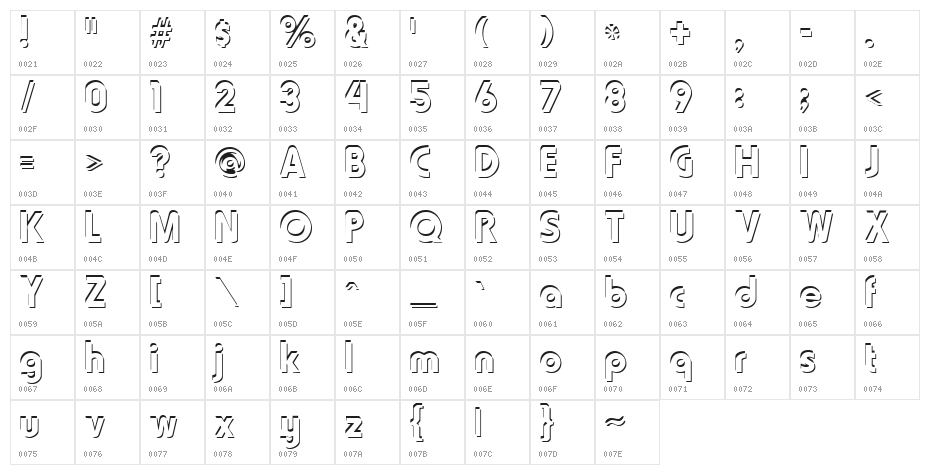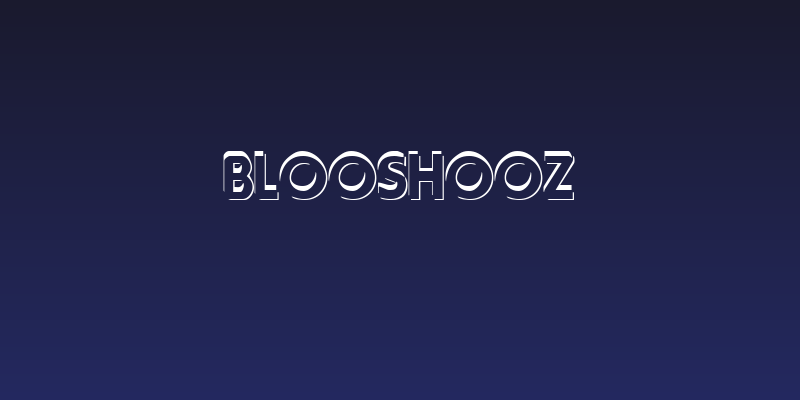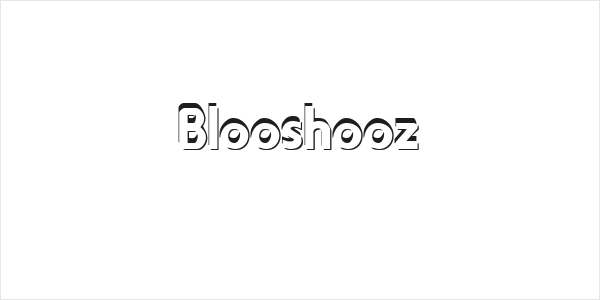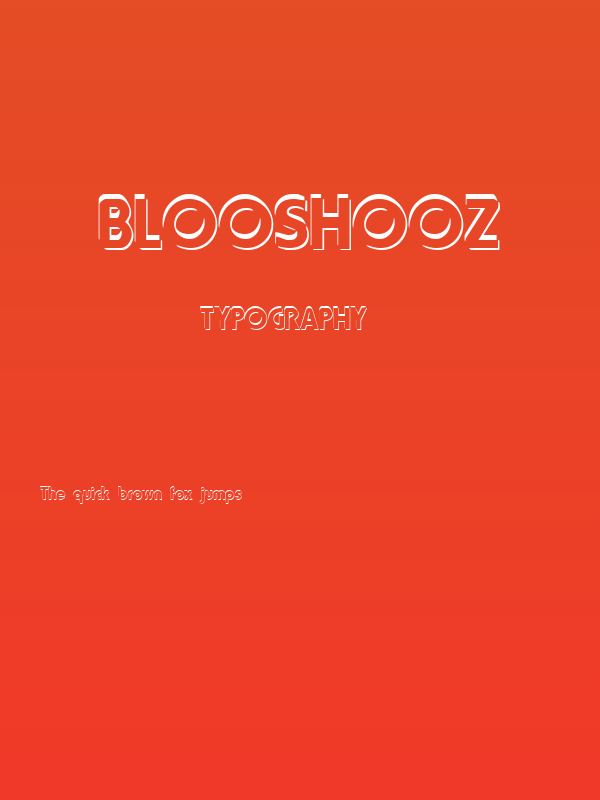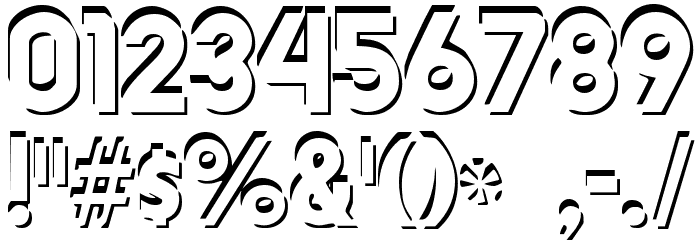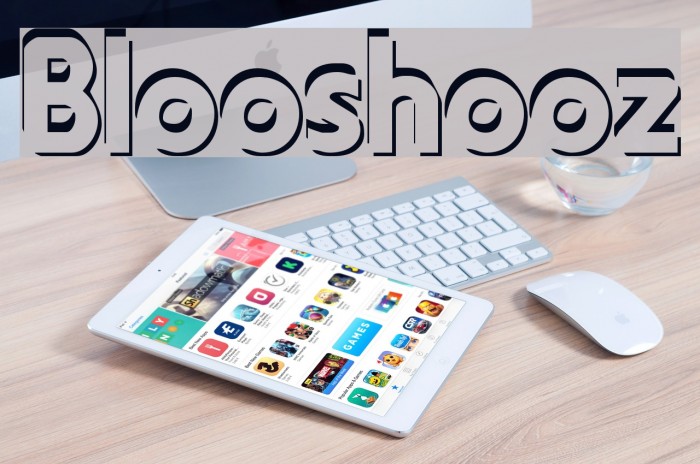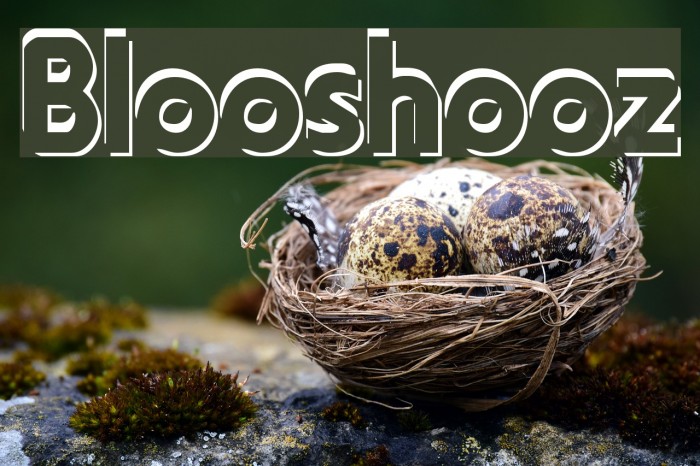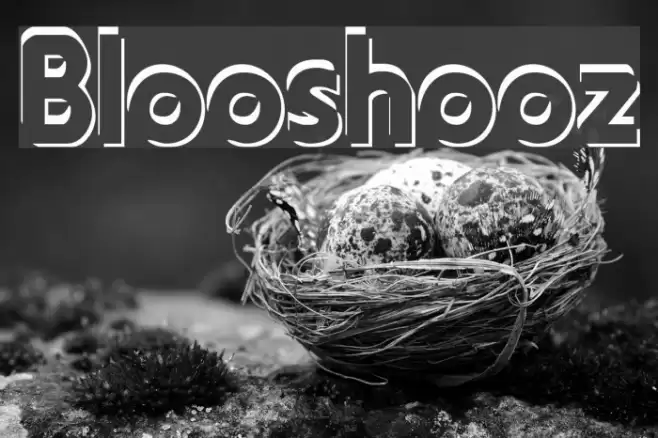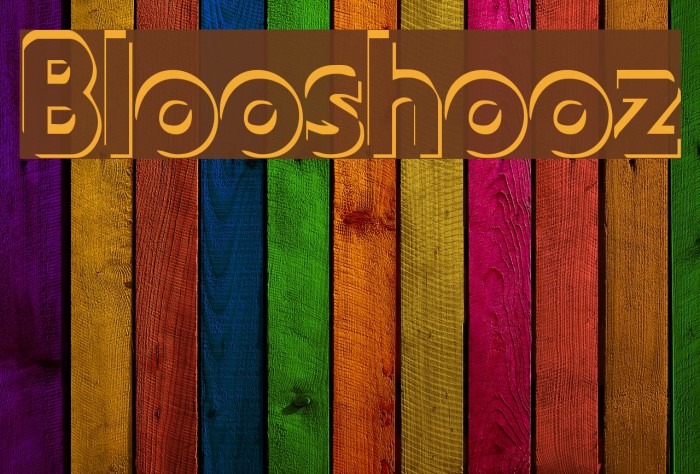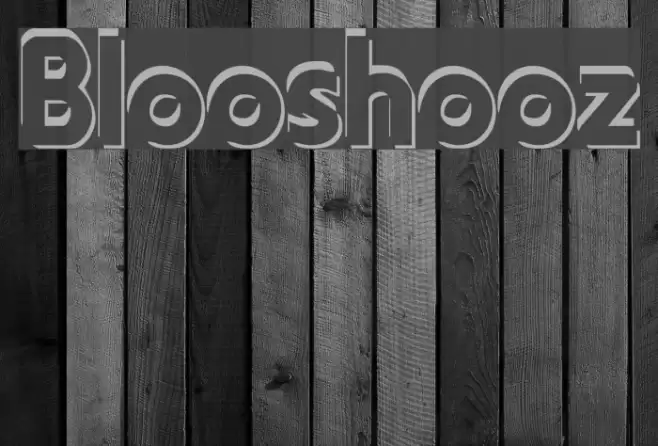
Blooshooz Font
This font features a bold, modern design with a unique outline style that gives each character a three-dimensional appearance. The uppercase and lowercase letters maintain a consistent geometric form, creating a cohesive look across the alphabet. The numerals and special characters are designed with the same attention to detail, ensuring readability and style. The font's outline effect adds a layer of depth, making it suitable for eye-catching designs. Its clean lines and structured form make it versatile for various applications.
| Proposed Projects | Ideal for branding, posters, headlines, and any design requiring a striking, modern look. |